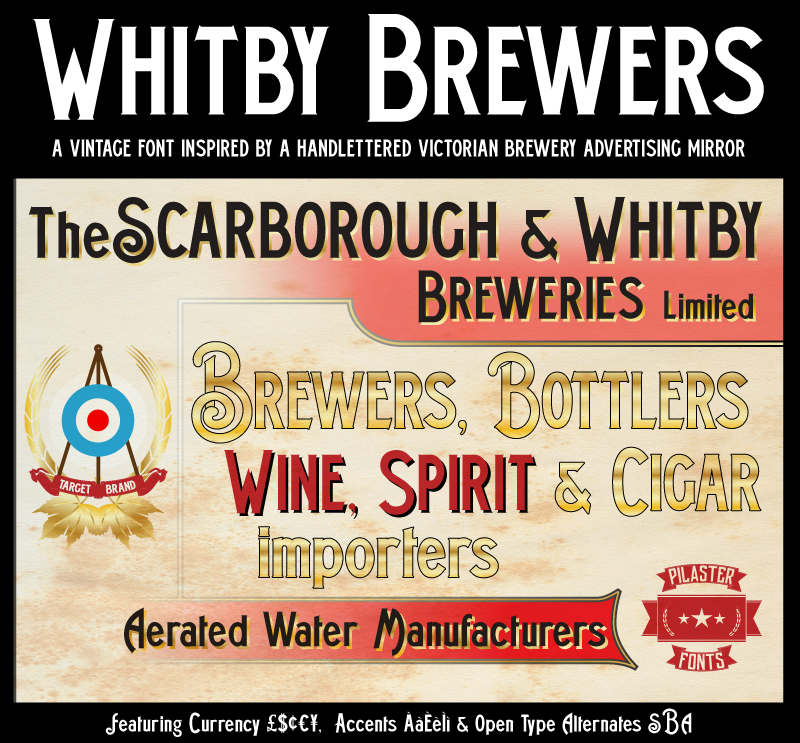
Whitby Brewers is inspired by the hand lettering on a reverse glass painted Victorian advertising mirror, found and recorded in the wonderful Beck Isle Museum, Pickering, North Yorkshire, in the UK. The museum also houses a working letterpress print room, which is a treat. Alternates for some capitals are available in Open Type enabled Apps or through the Glyphs Palette or Character Map. (Refer to your app/OS manual as to how to insert special characters/glyphs) Whitby Brewers is served free for personal use and served ‘as is’. If you like Whitby Brewers, please feel free to make a ‘domestic brew’ sized donation to the ‘buy the author a beer fund’ using the donate button. For any commercial use, should you find one for it, a donation (How much is up to you) should be considered mandatory! Enjoy! Pil |